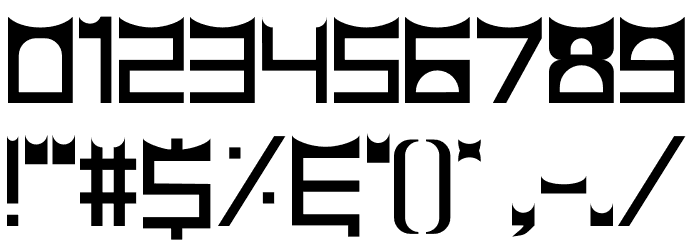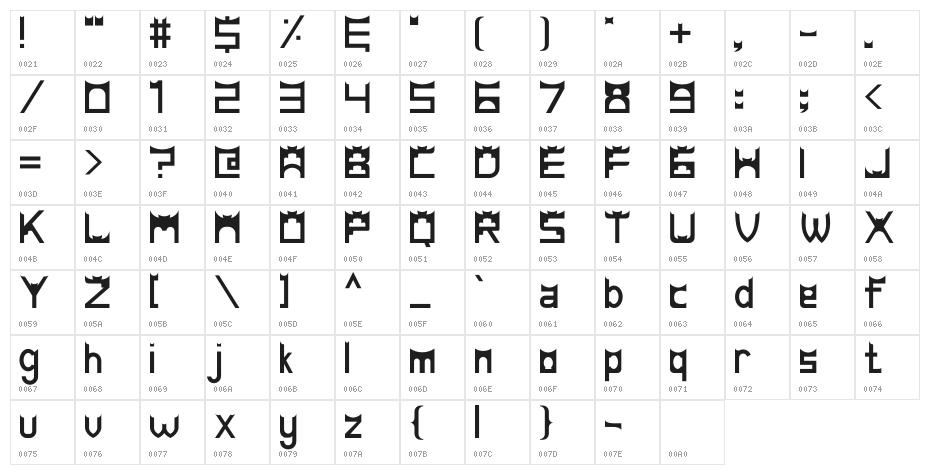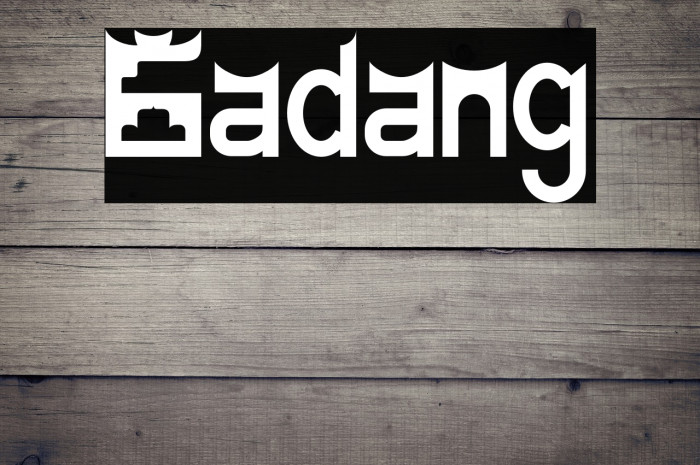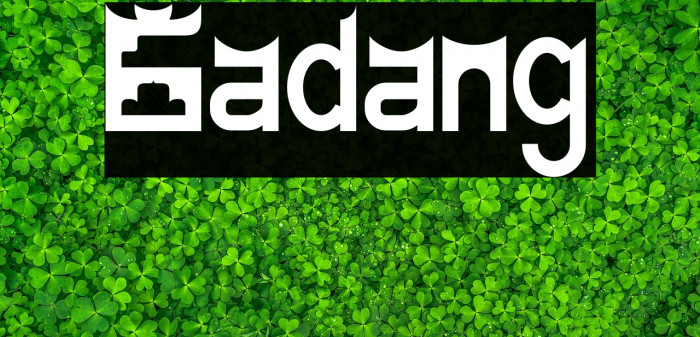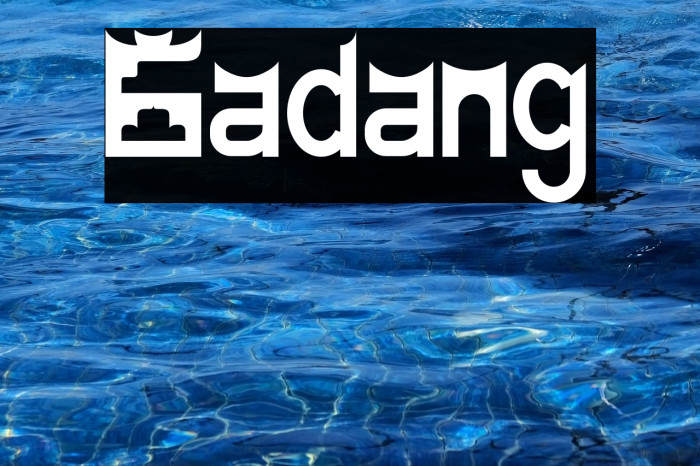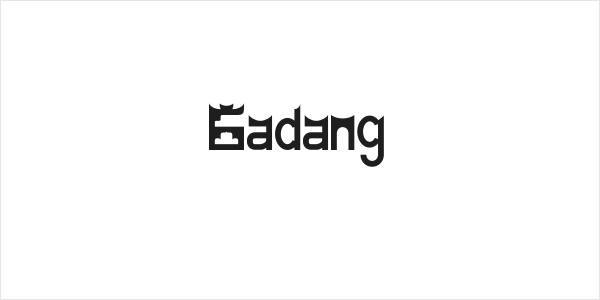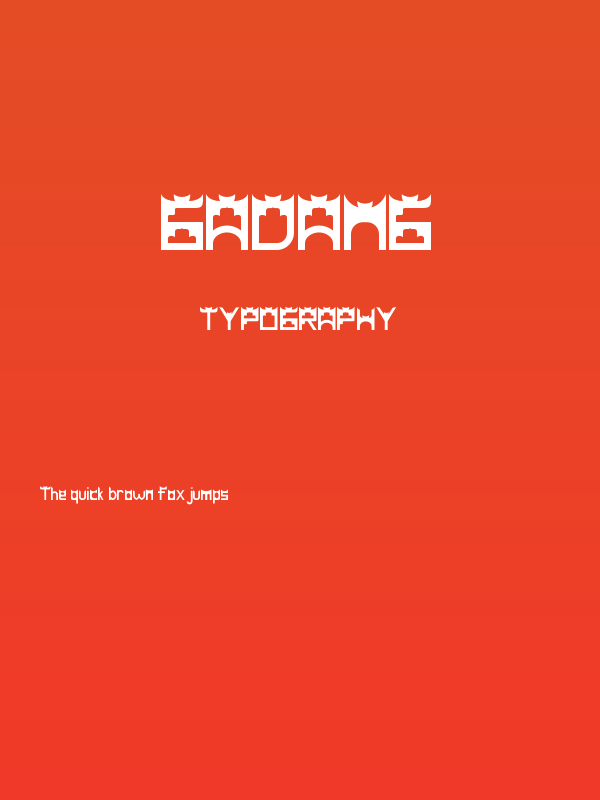
Gadang Font
Gadang Description
This font features a bold and striking design with a strong geometric influence. The uppercase letters are characterized by sharp angles and unique cutouts, giving them a modern and edgy appearance. The lowercase letters maintain a similar style, with a slightly softer approach, providing a nice balance between readability and artistic flair. The numerals are consistent with the overall style, offering a cohesive look across all characters. Special characters are creatively designed, adding to the font's distinctive personality. This font is ideal for projects that require a bold statement and a contemporary feel.